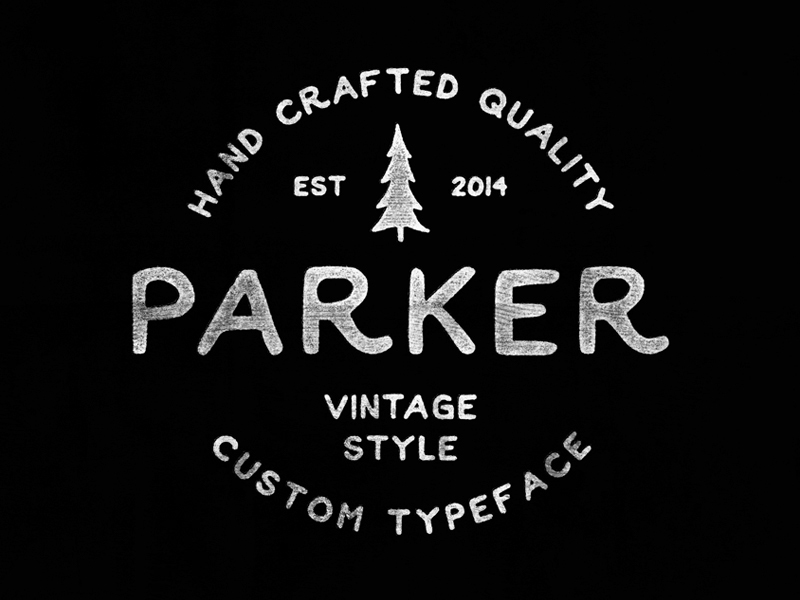
Parker Font
Right here is the Parker Font that falls into the category of the Vintages fonts. This typeface is quite similar to the ailerons font and it is for free. Now, the terrific agencies inc took the all proper reserved for this enterprise business enterprise. It’s headquarter placed in downtown north.
That is derived from the milkshake font. Consequently, it will become a gift-day producer with a large consumer base. So, at the triumphing, we wanna speak approximately the family used for the designing of its brand. Parker Font Free Because of the reality, pretty some sorts of designers from a number of the typeface and create a few new designs similar to bernier font that does not neglect particular from others.